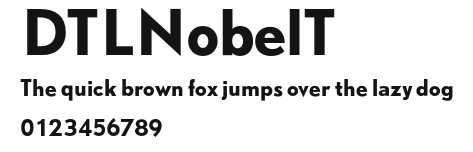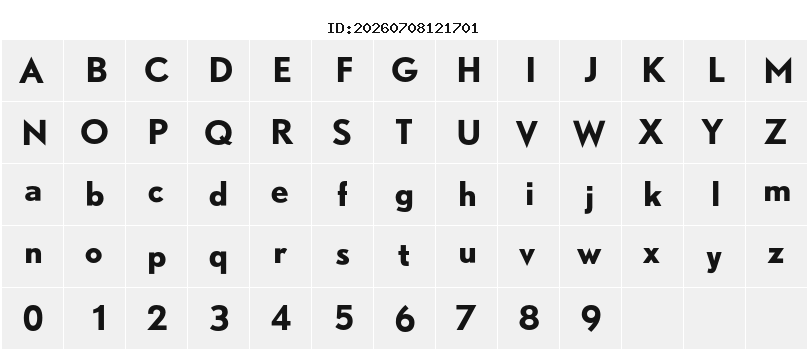
• Font Name: DTLNobelT
• Full Font Name: DTLNobelT-Bold
• PostScript Name: DTLNobelT-Bold
About DTLNobelT.otf
DTLNobelT.otf is a modern, elegant sans-serif font designed for ultimate readability and visual harmony. Perfect for branding, headlines, web design, and print materials.